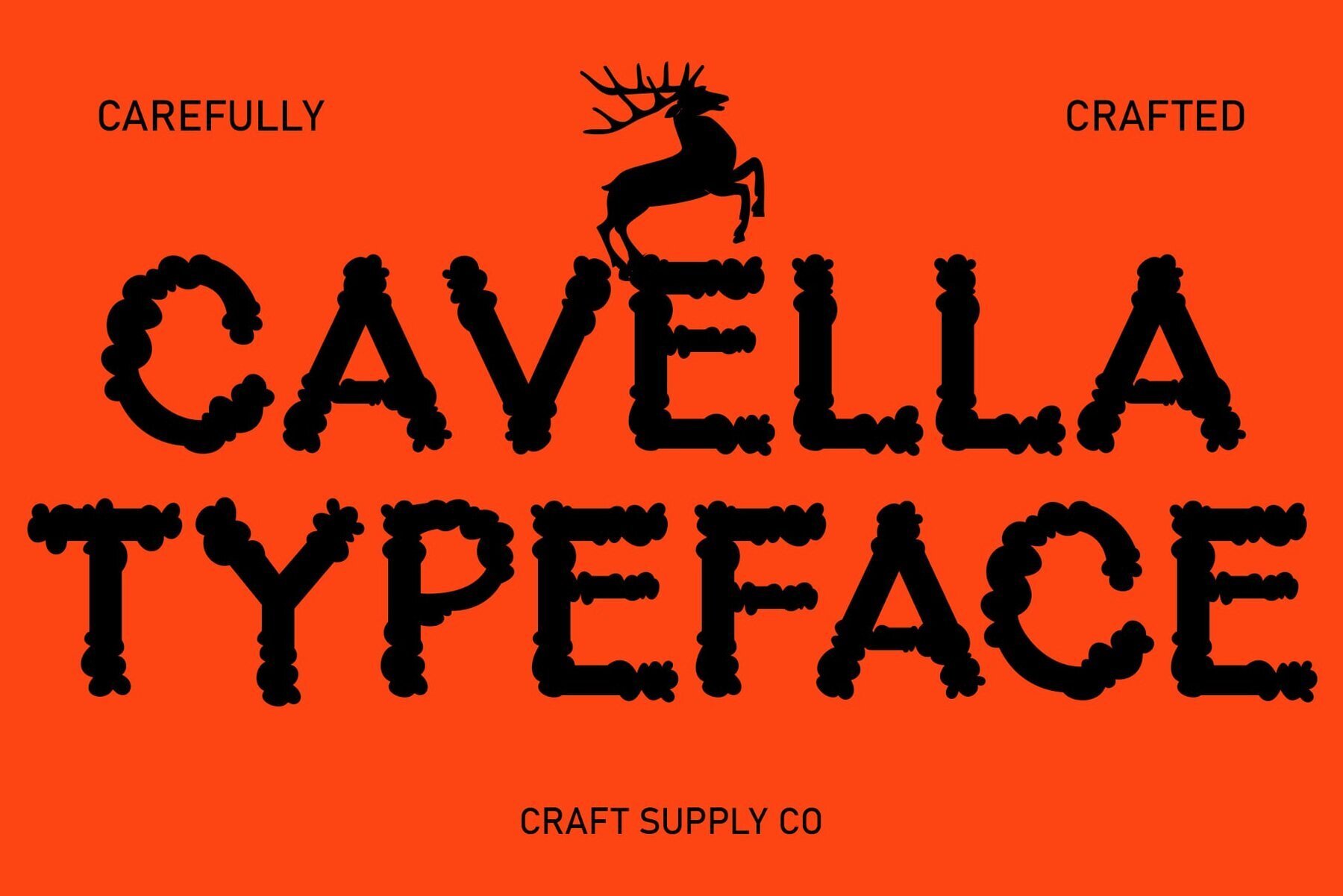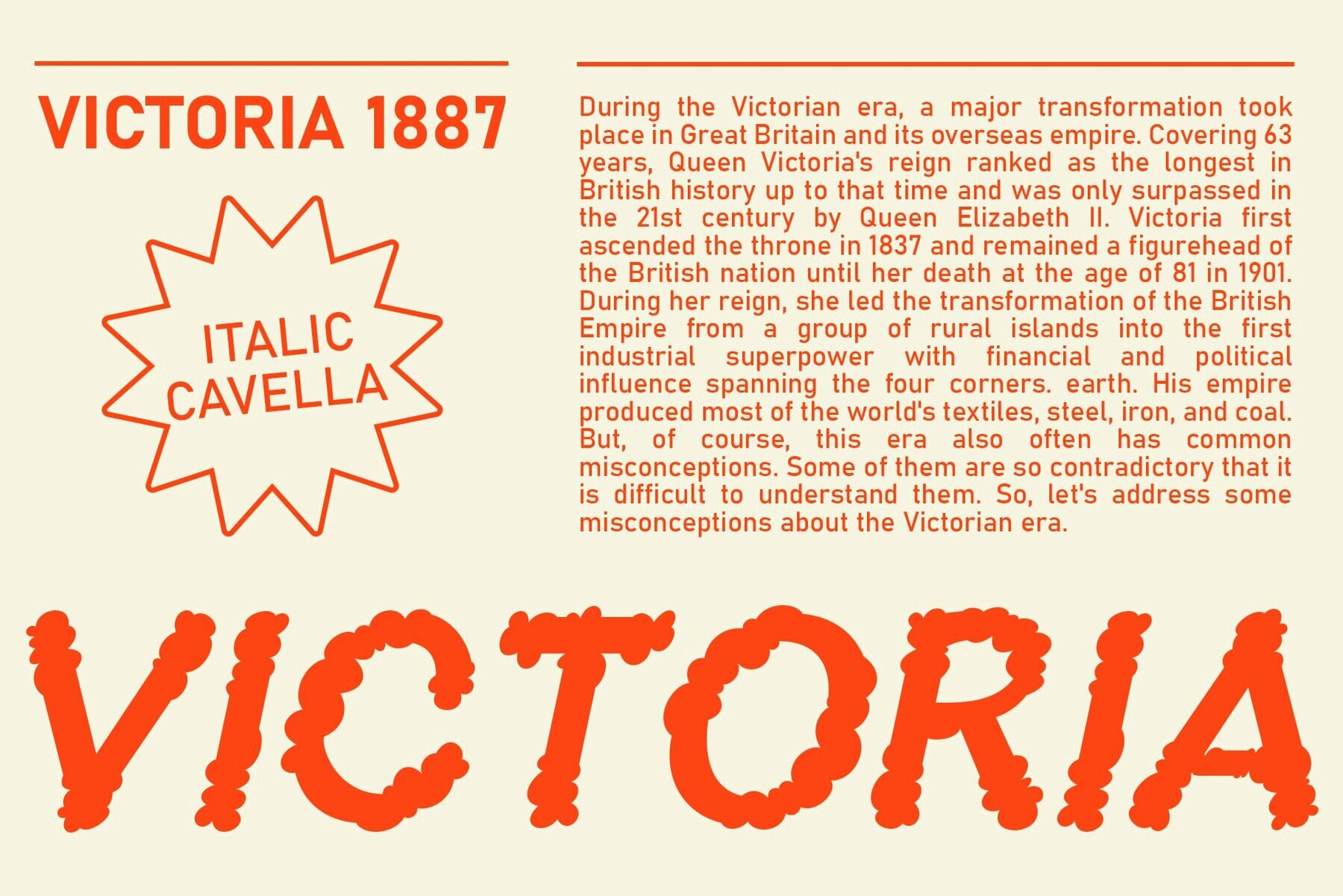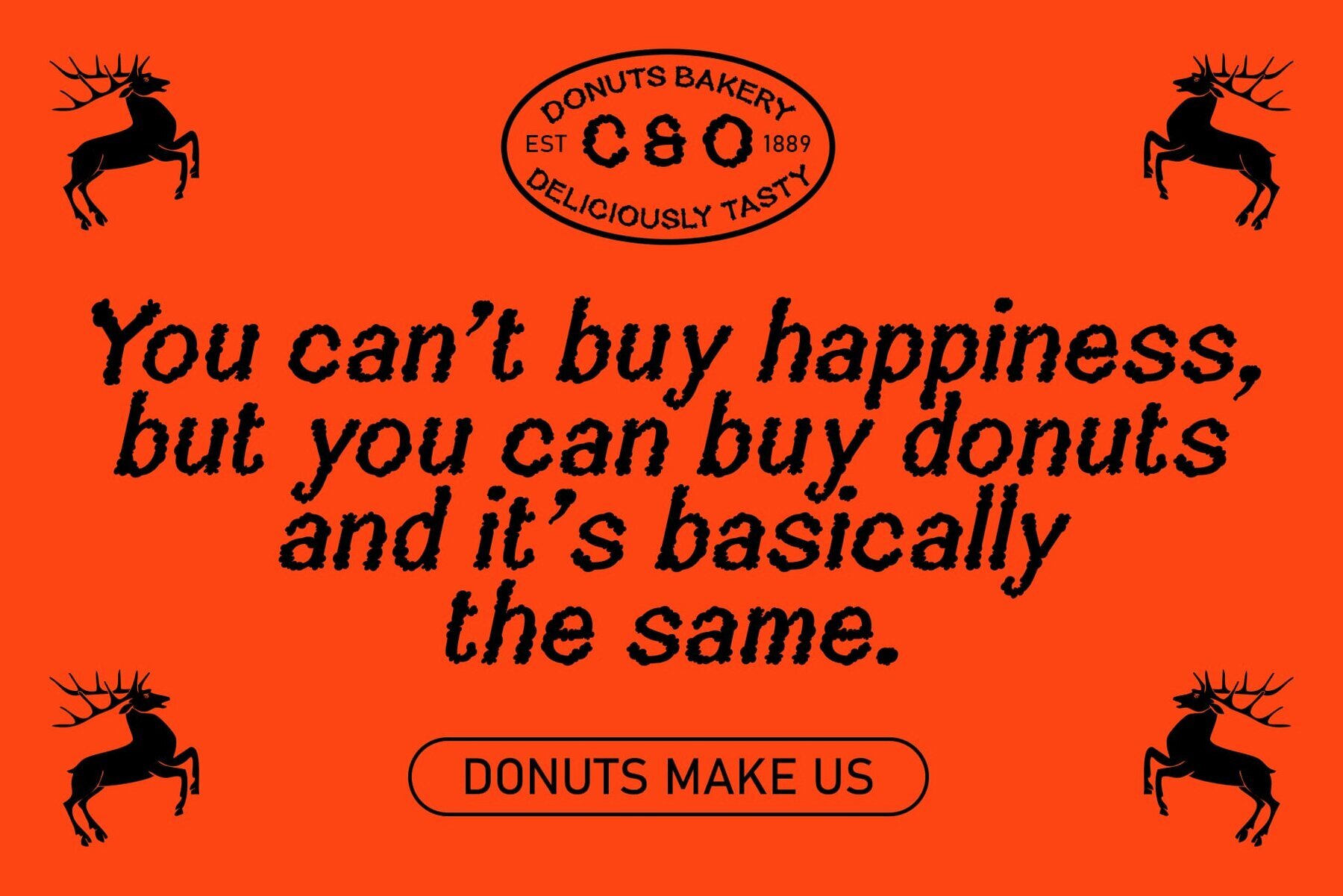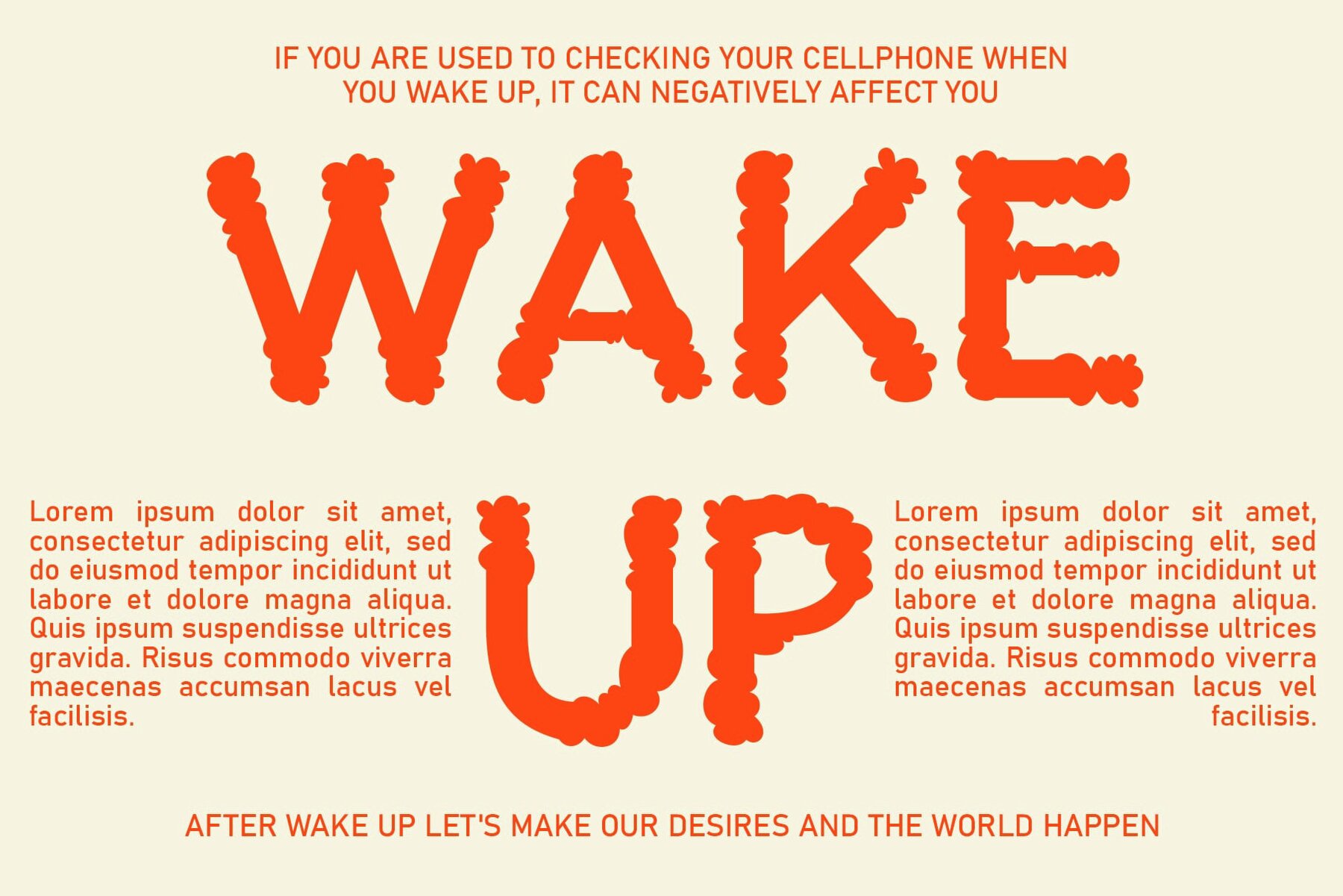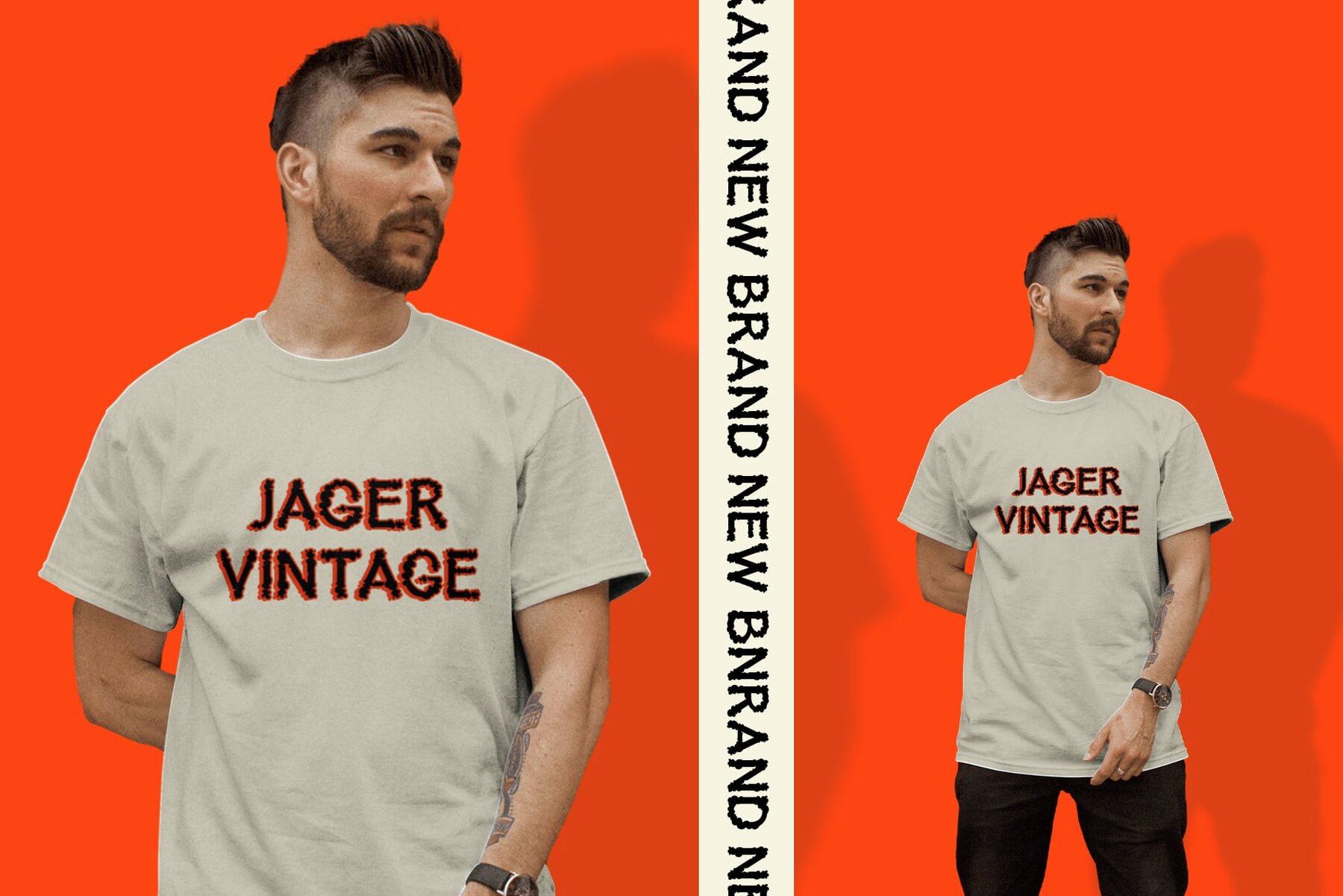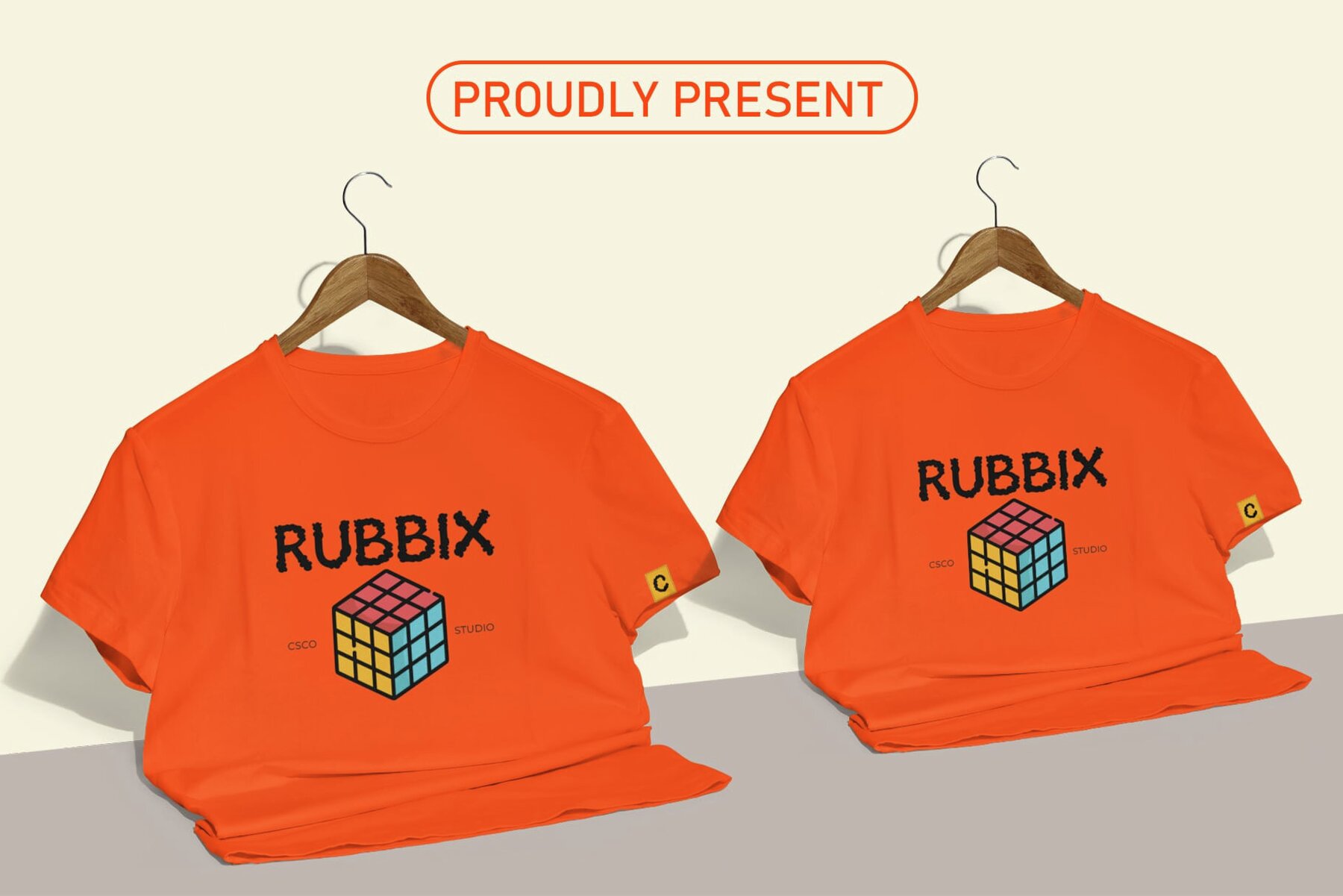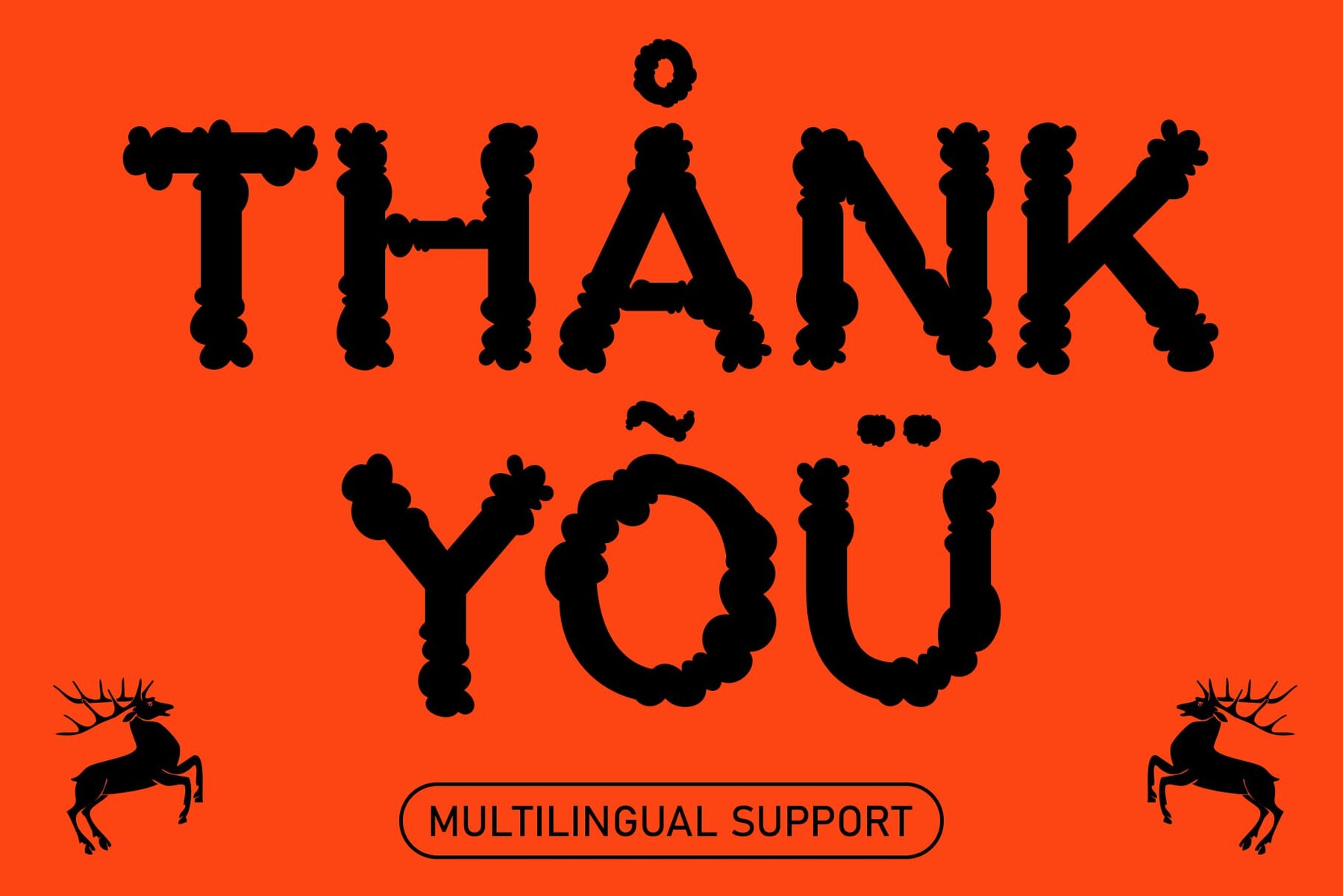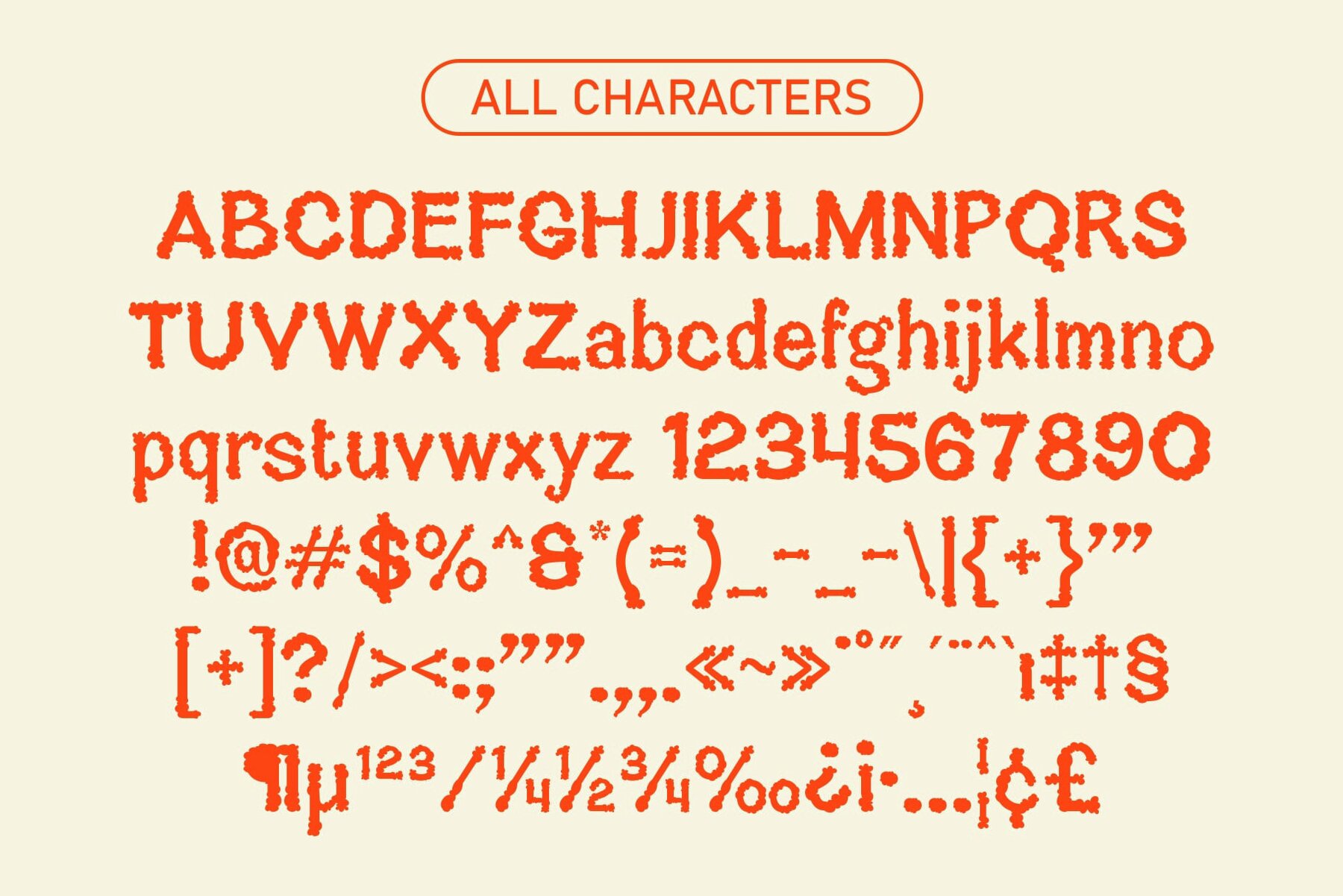
Cavella Font
Elevate your design projects with Cavella, a sleek display font renowned for its low-contrast strokes and modern aesthetic. This font is perfect for anyone seeking a minimalist and contemporary touch. Cavella is ideal for projects where bold statements and intrigue are paramount. Whether in branding, advertising, or editorial design, its smoky accents add depth and character to any composition. Combining sleek design with subtle smoke effects, Cavella offers a fresh perspective on display typography. Its low-contrast strokes and smoky accents make it a versatile and captivating choice for designers looking to make a bold impression. You can use this typeface without needing any specialized software. If you have any inquiries or need assistance, please feel free to contact us. We appreciate your support in enhancing your creative projects!Cavella: A Smoky Twist in Display Typography
Unique Features
Perfect for Bold Statements
Summary: Where Smoke Meets Typography